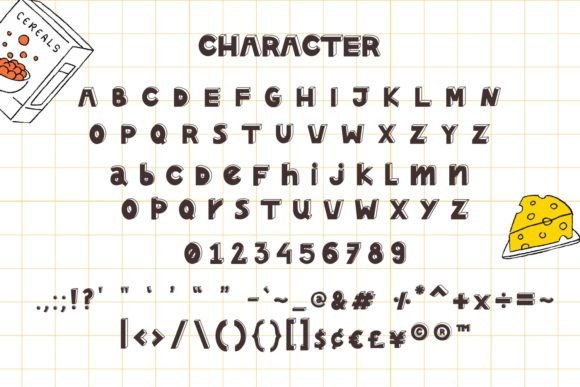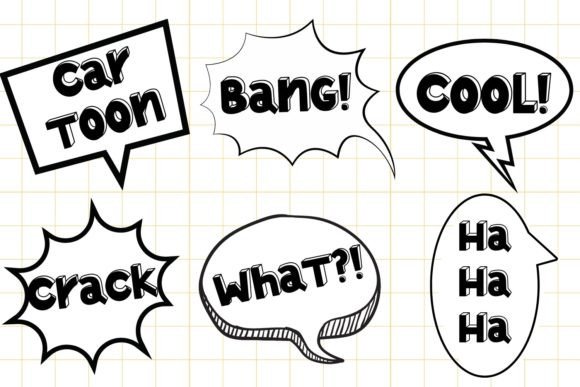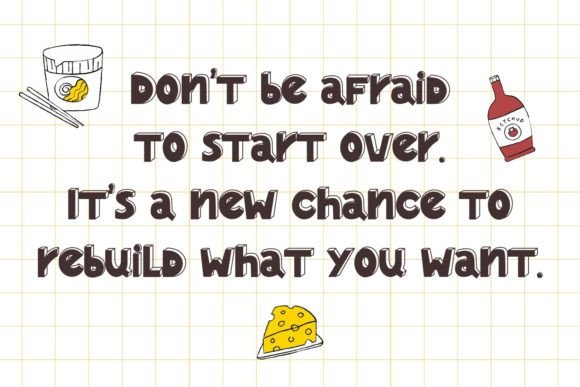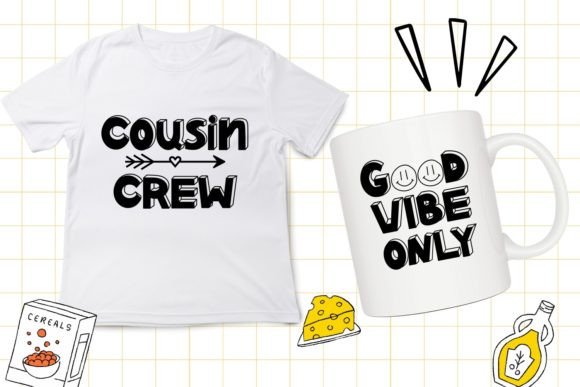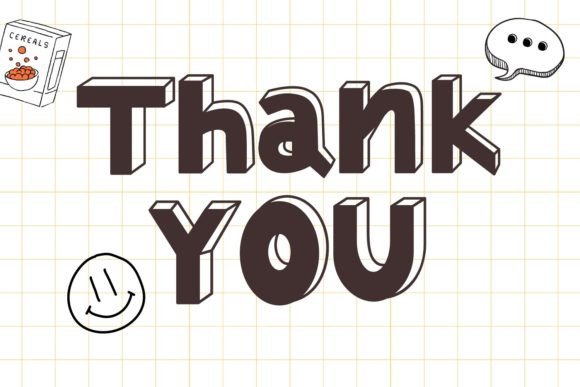
Introducing BooMbox: The Font That Packs a Punch!
Have you ever been in the middle of a design project, and suddenly, it hits you – the font you’re using just isn’t cutting it? You’re not alone! I recall working on a children’s book project where I needed a font that was not only bold and clear but also playful and fun. The problem was, I couldn’t find anything that ticked all those boxes… until I stumbled upon BooMbox.
The Birth of BooMbox
BooMbox is more than just a font – it’s a design statement. With its bold and clearly visible typeface, this font is designed to make your designs pop! The creators of BooMbox aimed to infuse a touch of humor and creativity into their design, making it perfect for projects that require a lively and fun element.
I’ve had the chance to play around with BooMbox, and here’s what I think:
- ✨ It’s incredibly versatile: Whether you’re creating posters, comic books, children’s books, or any design that calls for a burst of energy, BooMbox fits the bill.
- ✅ Easy to read: The bold letterforms ensure that your message is loud and clear, making it perfect for headlines and titles.
- 😊 Fun and playful: The funny and whimsical characters bring a sense of joy and playfulness to your projects.
However, no font is perfect, and BooMbox is no exception:
- 🤔 Limited use in formal designs: Due to its playful nature, BooMbox might not be the best choice for formal or professional projects that require a more serious tone.
- ⚠️ Overuse can be overwhelming: While BooMbox is fun and energetic, using it excessively can make your design look cluttered and overwhelming.
The Designer Inspiration Behind BooMbox
The story behind BooMbox’s creation is one of creativity and experimentation. The designers aimed to create a font that would not only be fun and playful but also bold and clear. Inspired by the nostalgia of boomboxes and the energy of comic books, BooMbox was born – a font that’s sure to bring a burst of energy to your designs.
| Font Name | Boom Box Font |
| Author | Issie_Studio |
| What makes BooMbox unique? | BooMbox’s unique blend of boldness, clarity, and playfulness makes it stand out from other fonts. |
| Is BooMbox suitable for body text? | While BooMbox is primarily designed for headlines and titles, it can be used for body text in certain contexts, such as children’s books or informal documents. |